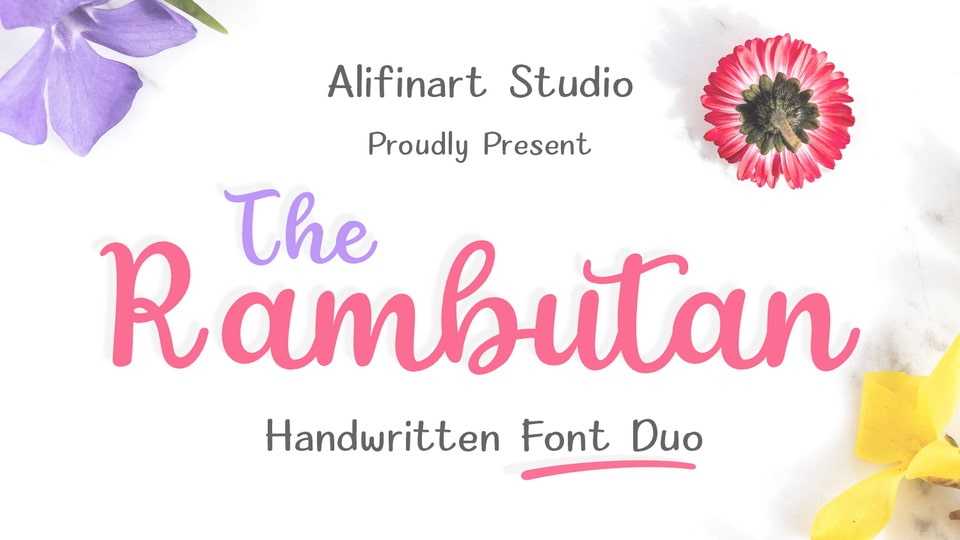
Download The Rambutan font, a unique typeface with a subtle and bold style. The Rambutan font is very well used in a variety of designs such as menus, catalogs, invitation cards, wedding, blog, travel photographers and others.
Designer: Alifinart Studio